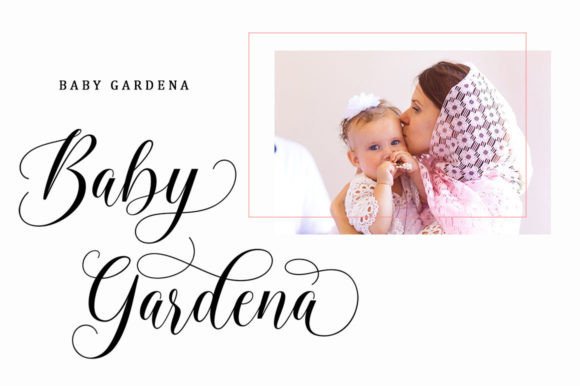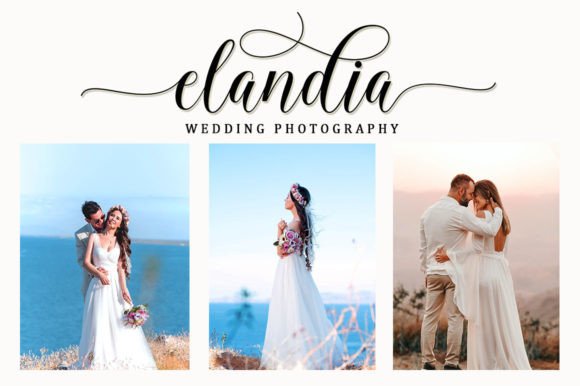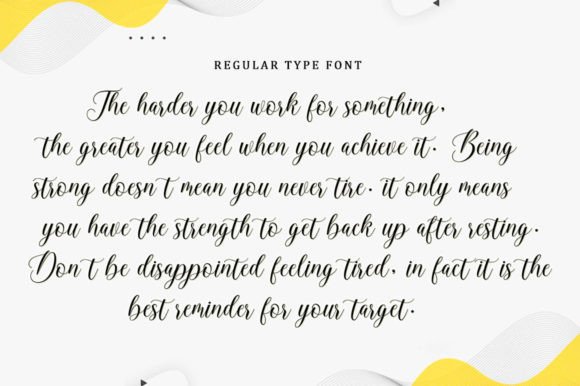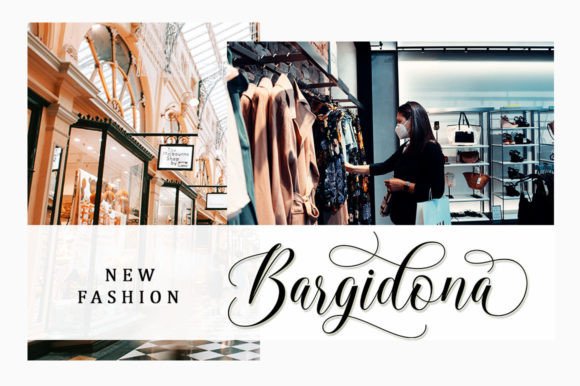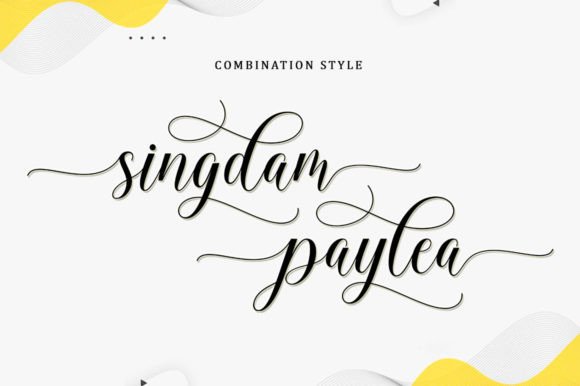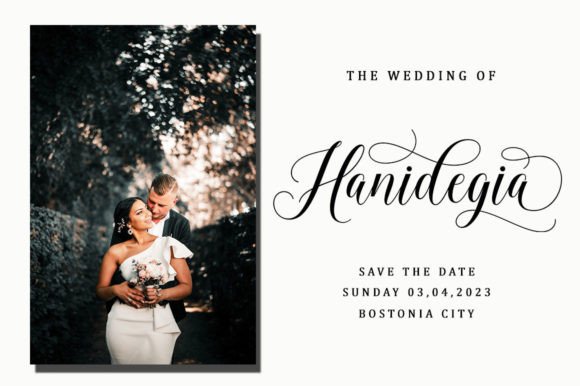
Unleash the Glamour: Introducing Benghane Mastugan Font
As a designer, have you ever found yourself struggling to convey the essence of luxury and sophistication through your work? Perhaps you’ve been searching for the perfect font to elevate your branding, packaging, or editorial designs to the next level. Look no further, as we’re excited to introduce you to the stunning Benghane Mastugan Font.
| 👤 Author | Kartiny Type |
This beautiful Modern Script font boasts a classic copper decorative script style with a modern twist, making it the perfect choice for designers seeking to add a touch of elegance to their projects. With its clean, feminine, and sensual design, Benghane Mastugan Font is sure to captivate your audience and leave a lasting impression. Whether you’re working on a high-end fashion brand or a luxurious wedding invitation, this font is sure to bring your designs to life.
Benghane Mastugan Font Key Features
- Font Family: Benghane Mastugan is a unique and elegant font family, ideal for creative projects and designs.
- Unicode Support: Benghane Mastugan supports a wide range of Unicode characters, making it a versatile font for multilingual designs.
- Unique Characteristics: The font features intricate details, elegant curves, and a touch of cultural heritage, setting it apart from other font families.
Benghane Mastugan Font Review
I must say, I was immediately drawn to the Benghane Mastugan font’s unique blend of traditional and modern elements. ✨ The font’s intricate details and ornate flourishes evoke a sense of elegance and sophistication, making it perfect for high-end branding and design projects.
Here are some of the things that work well in this font:
- ✨ Highly versatile: Benghane Mastugan can be used for a wide range of applications, from body text to headings and titles.
- ✨ Unique character set: The font includes a range of special characters and symbols that add to its cultural and historical significance.
- ✨ High-quality rendering: Benghane Mastugan is a high-resolution font that looks great at any size or resolution.
- ⚠️ Limited language support: Benghane Mastugan is primarily designed for Arabic-speaking regions, which may limit its use in other languages.
- ⚠️ Complexity: The font’s intricate details can make it difficult to read in certain situations, such as at small font sizes or in low-light environments.
Overall, I’m impressed with the Benghane Mastugan font’s unique style and high-quality rendering. While it may have some limitations, it’s a great choice for designers looking to add a touch of cultural flair to their projects.
The Benghane Mastugan font is a unique and exotic script font that can add an elegant touch to your designs. To use it, follow these steps:
To get the most out of the Benghane Mastugan font, try the following:
- Experiment with different font sizes and styles.
- Combine the font with other exotic fonts for a unique look.
- Use the font to create intricate designs and graphics.
The Benghane Mastugan font is ideal for:
- Special occasion cards and gifts.
- Travel and cultural branding.
Alternatives to Benghane Mastugan Font